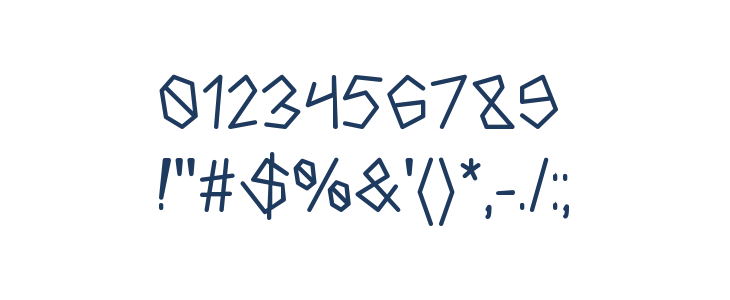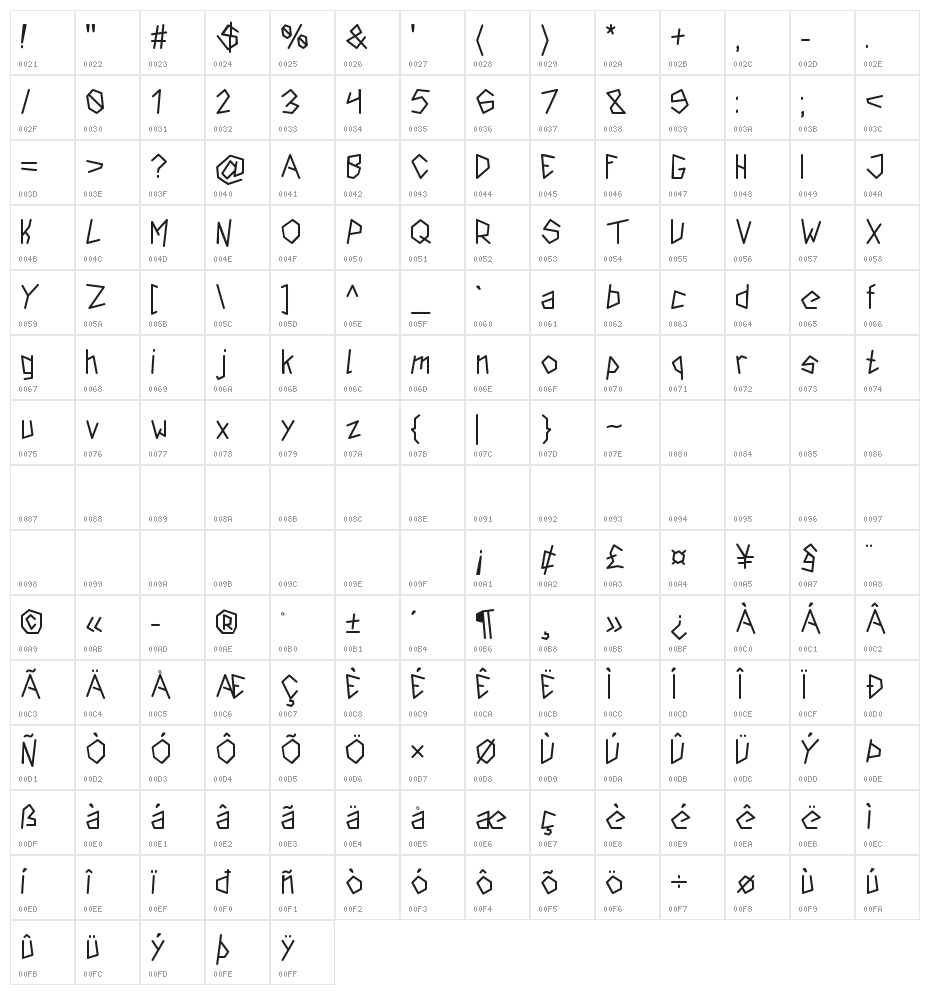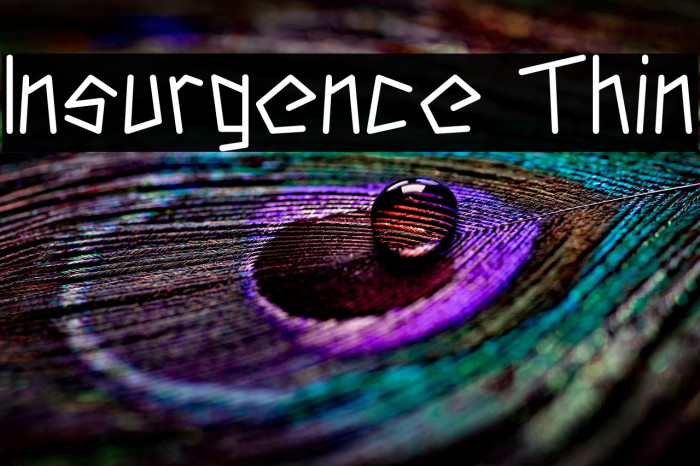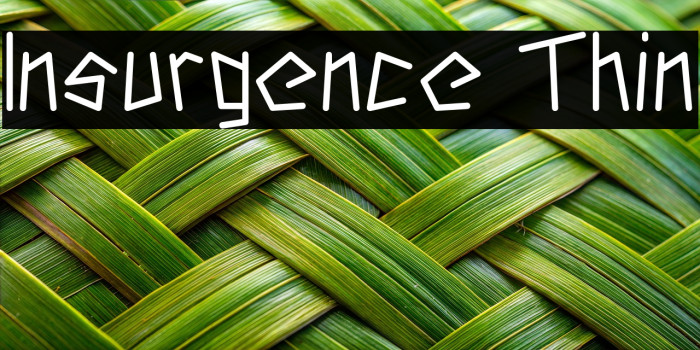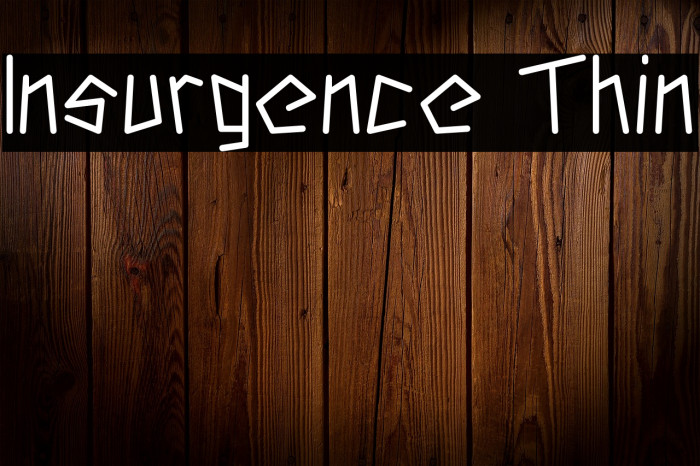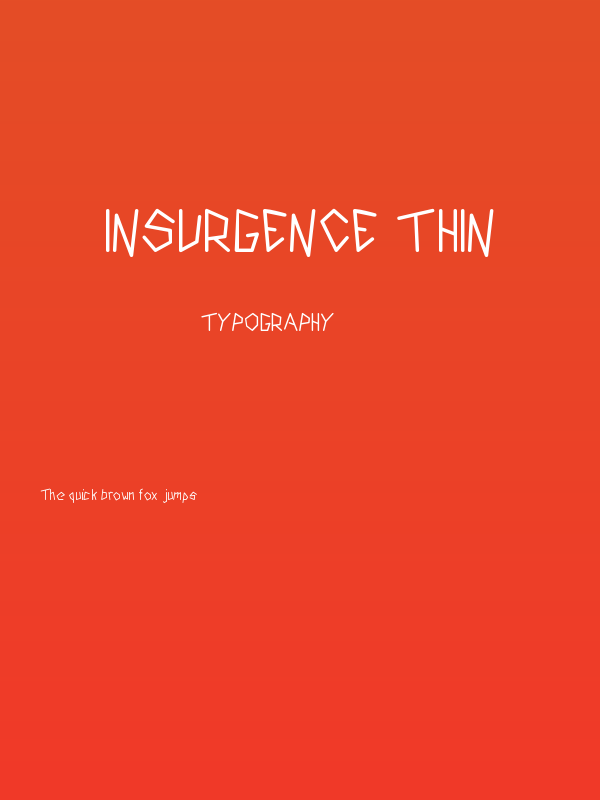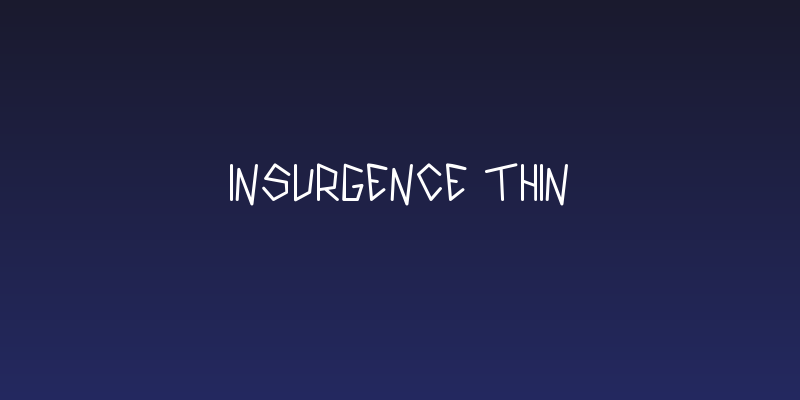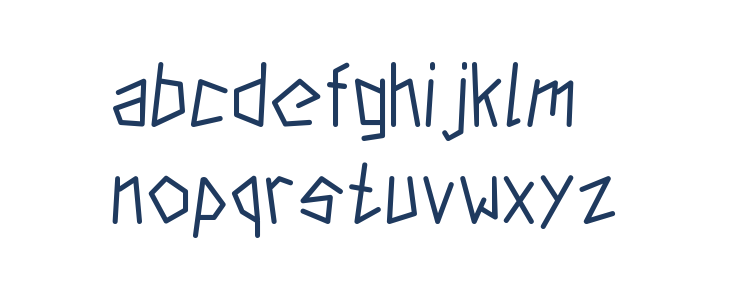
Insurgence Thin Font
Insurgence Thin Description
This font features a unique, angular design that combines elements of both modern and geometric styles. The characters are constructed with straight lines and sharp angles, giving it a distinct, edgy appearance. The uppercase and lowercase letters maintain a consistent style, with a slightly condensed form that enhances its bold, impactful look. The numerals and special characters follow the same design principles, ensuring a cohesive visual experience. This font's unconventional style makes it stand out, ideal for projects that require a strong, memorable typeface.